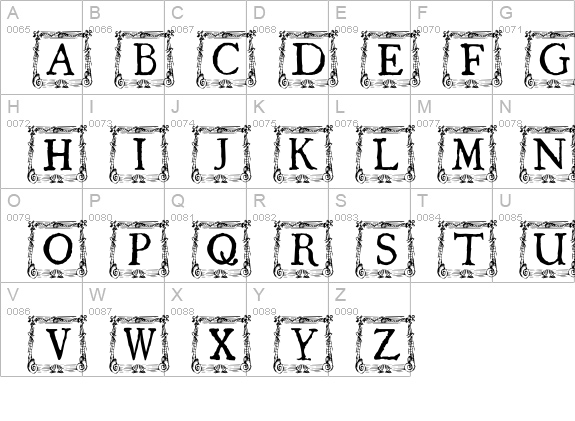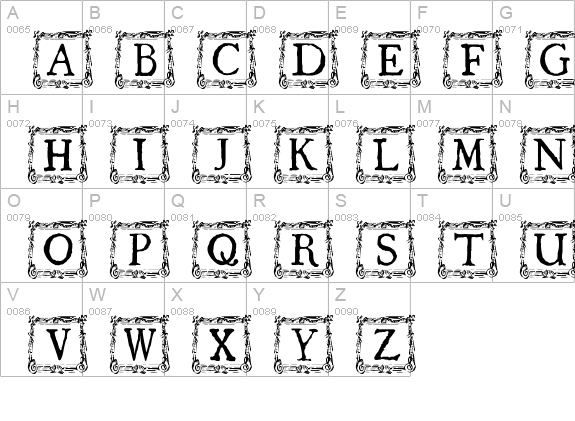
QuaNauticale_Initials_No3 Font Details
QuaNauticale_Initials_No3 is a mesmerizing and captivating font that is perfect for adding a touch of elegance and sophistication to your designs. This font stands out with its intricate and beautifully crafted initials, each possessing a unique and artistic flair. With its delicate curves and precise detailing, QuaNauticale_Initials_No3 will effortlessly enhance any project, whether it be invitations, logos, or branding materials. Its versatility allows it to effortlessly adapt to various styles and themes, making it a must-have font for any creative endeavor. What makes QuaNauticale_Initials_No3 even more appealing is that it is available for free download at FontsMarket.com. This means that you can effortlessly add this stunning font to your collection without any cost. With just a few clicks, you can access the font and begin incorporating its beauty into your designs. Don't miss out on this opportunity to elevate your design projects with QuaNauticale_Initials_No3. Download it for free today at FontsMarket.com and unleash your creativity with this exquisite font.